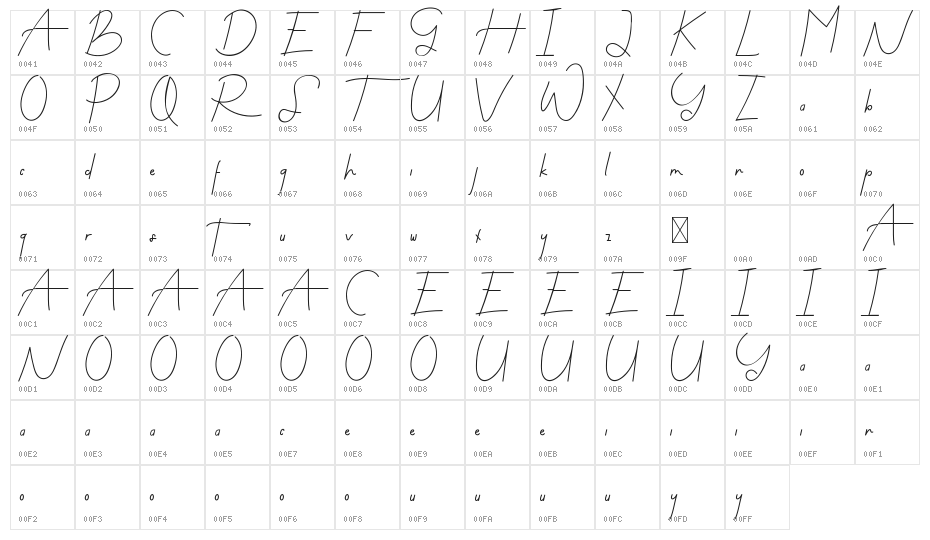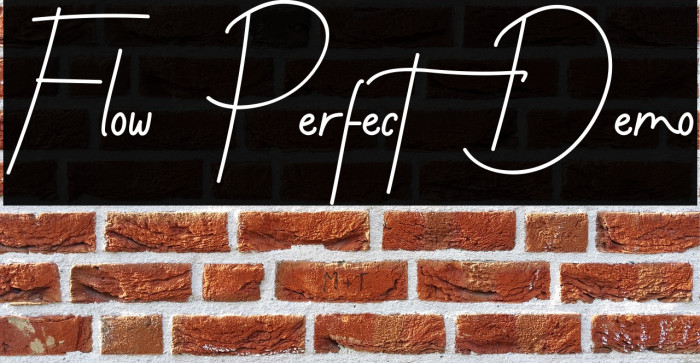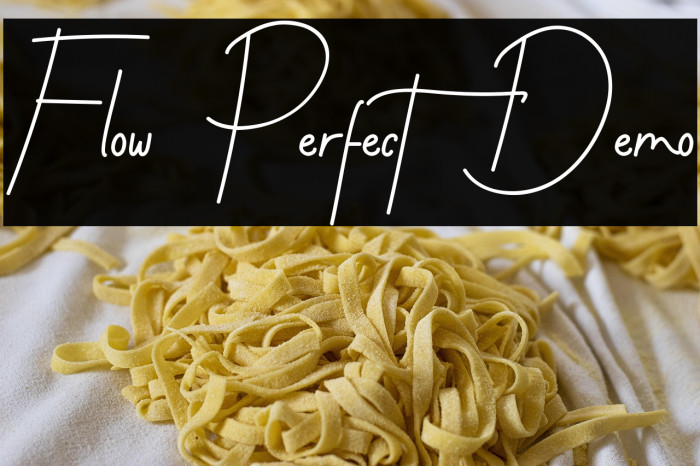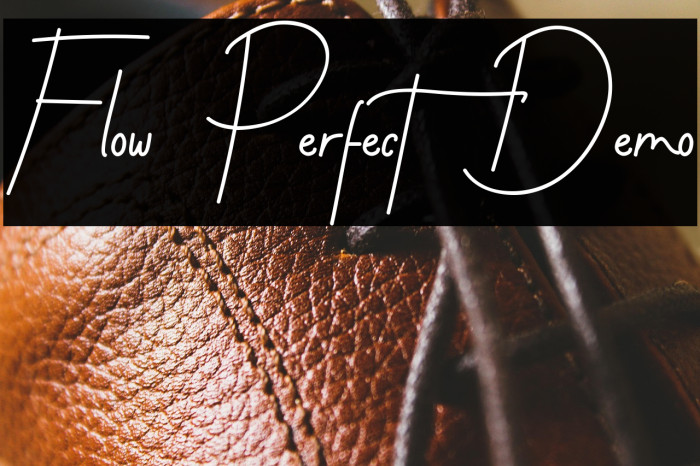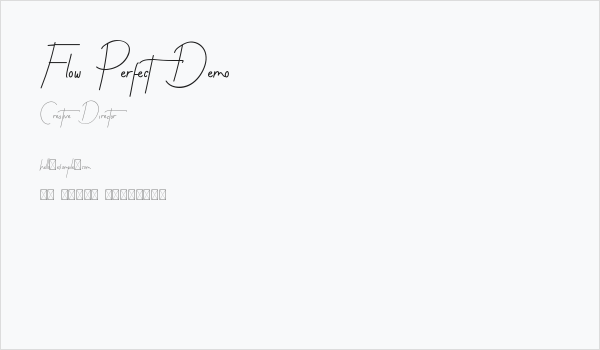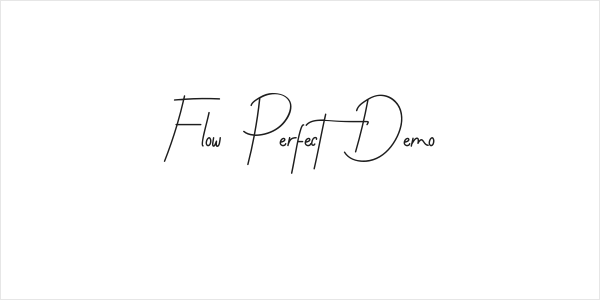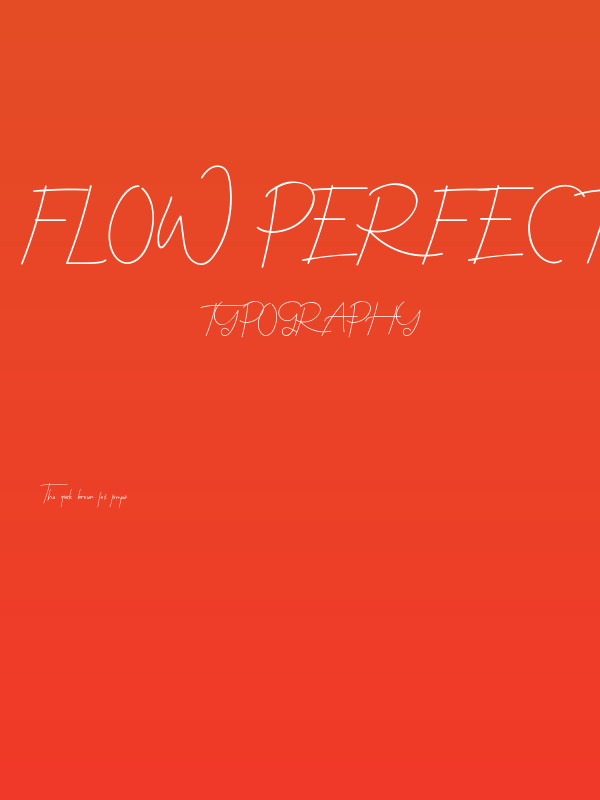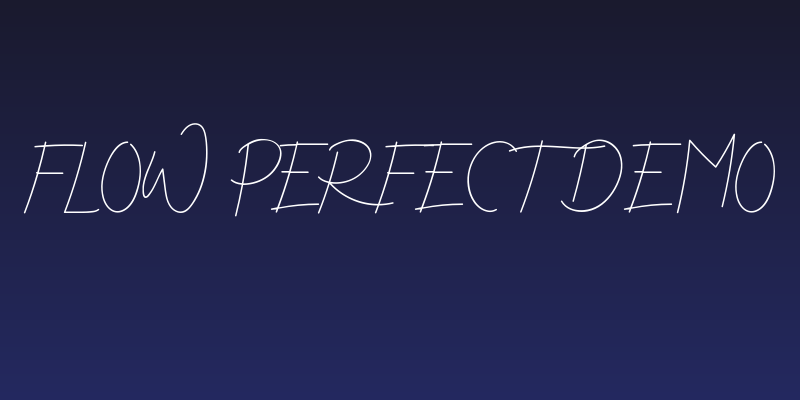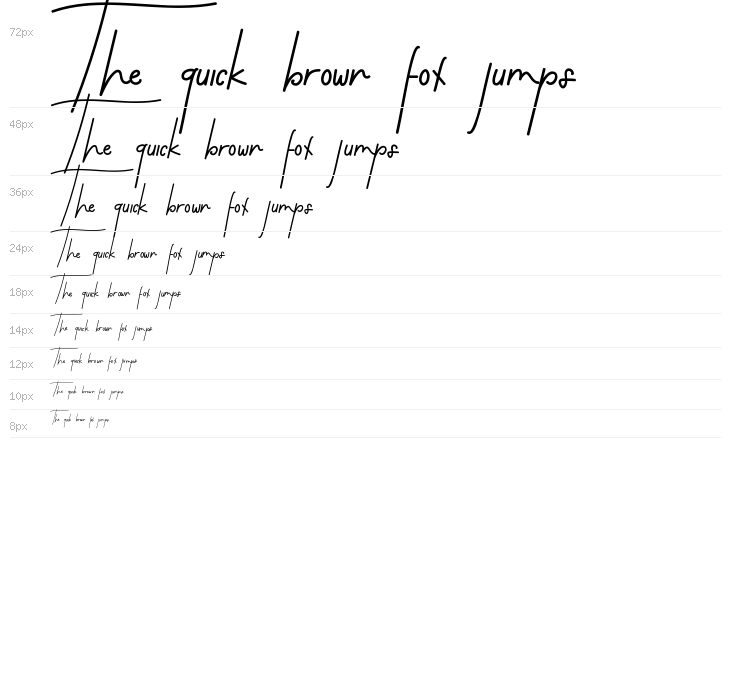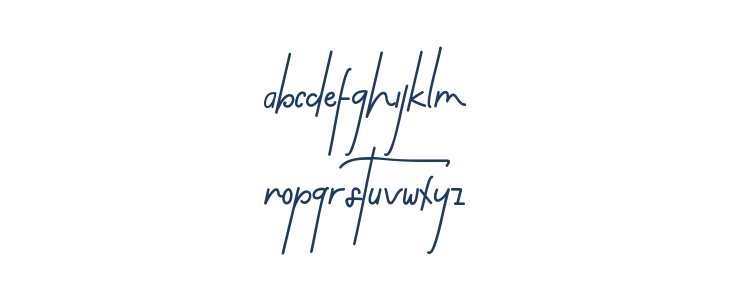
Flow Perfect Demo Font
Flow Perfect Demo Description
This font exhibits a unique and artistic style, characterized by its flowing, interconnected strokes that give it a handwritten appearance. The uppercase letters are tall and slender, with a slight slant that adds to the dynamic feel of the typeface. The lowercase letters maintain a consistent flow, with some characters extending below the baseline, enhancing the script-like quality. The numerals and special characters are crafted with the same fluidity, ensuring a cohesive look across all characters. This font's elegance and distinctiveness make it suitable for creative and expressive design projects.